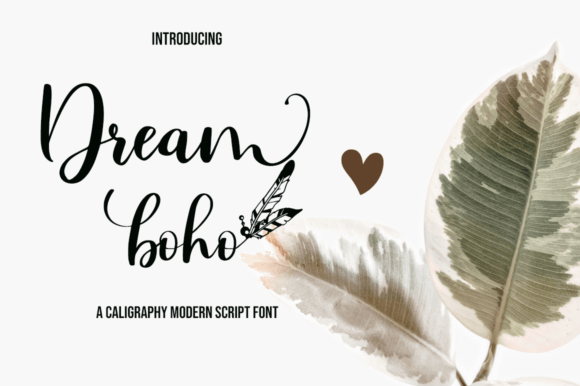
Journey into the realm of elegance and sophistication with Dream Boho Font, a masterfully crafted script font family that exudes charm and individuality. Its delicate strokes and graceful curves are like a gentle caress upon the eyes, inviting you to explore a world of creativity and expression.
Immerse yourself in the beauty of Dream Boho's meticulously designed characters, each one a testament to the artistry and passion of its creator, CocoDesign. Experience the harmonious blend of classic calligraphy and contemporary flair, as this font duo seamlessly merges the timeless with the modern.
Unleash your creativity with Dream Boho's remarkable versatility. Whether you seek to craft captivating logos that leave a lasting impression, add a touch of elegance to product packaging, or create unforgettable wedding invitations that reflect the joy and romance of the occasion, Dream Boho is your perfect companion.
Step into the spotlight with Dream Boho's captivating headlines that command attention and leave a lasting impact. Elevate your signage and labels with its distinctive charm, ensuring your messages stand out from the crowd. Let your signatures, book covers, posters, and quotes radiate with personality and style, as Dream Boho transforms ordinary words into works of art.
With Dream Boho, you'll discover a font that effortlessly adapts to your creative vision, enhancing your designs with grace and sophistication. Its user-friendly nature makes it accessible to both seasoned designers and those just starting their creative journey.
Embrace the allure of Dream Boho today and embark on a journey of artistic exploration. Let its enchanting aura captivate your audience, leaving them mesmerized by the beauty of your creations. Dream Boho is more than just a font; it's an invitation to elevate your designs to new heights of artistry and excellence.